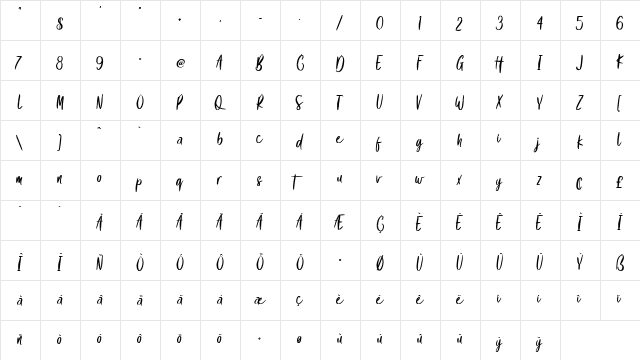
Sexy Queen Regular
| Foundry | Typhoon Type - Suthi Srisopha |
| Designer | Typhoon Type - Suthi Srisopha |
Design Context for Sexy Queen Typeface
Sexy Queen is a composed and adaptable typeface that performs quietly and consistently across a wide range of design contexts.